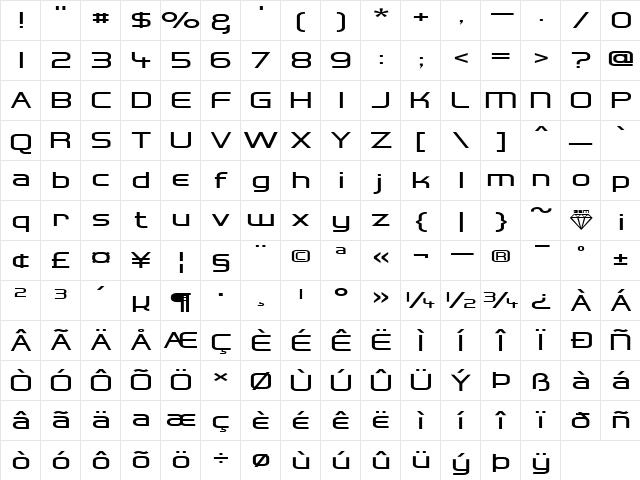
Hall Fetica Regular
Design Context for Hall Fetica Typeface
Hall Fetica takes a measured approach to typography — its balanced proportions and neutral character make it a reliable workhorse for both digital and print work.